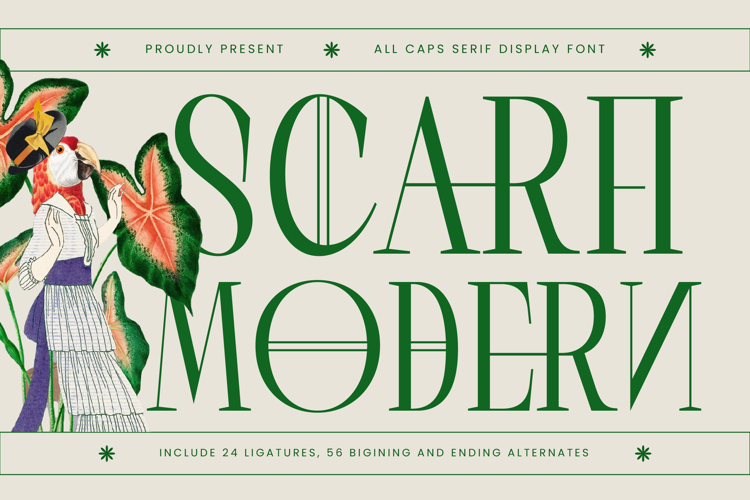
Scarfi Modern - All Caps Serif Display Font
Scarfi Modern is an all caps serif display font that radiates elegance, refinement, and bold sophistication. Its tall, narrow proportions, sharp serifs, and clean geometric cuts create a striking balance between modern minimalism and timeless classic style. Designed with 24 ligatures and 56 beginning and ending alternates, Scarfi Modern allows designers to craft dynamic and unique layouts that stand out with authority and grace.
This font is built to excel in headline typography, where its sleek forms and tall proportions instantly capture attention across posters, banners, and editorial layouts. In branding and logo design, Scarfi Modern communicates exclusivity and prestige, making it an ideal choice for luxury brands, fashion houses, cultural institutions, and boutique businesses that want to showcase a bold yet refined identity. Its architectural structure also makes it a perfect fit for packaging design, especially for perfumes, wine, artisanal goods, and gourmet products where typography must elevate the sense of premium quality.
Scarfi Modern thrives in advertising campaigns, event promotions, and social media graphics, where its alternates and ligatures bring artistic variety and sophistication. For editorial spreads, book covers, wedding invitations, and certificates, it delivers timeless refinement while ensuring clarity and elegance.
With multilingual support, Scarfi Modern is adaptable for international markets, making it versatile for global design projects.
Ultimately, Scarfi Modern is more than just a typeface—it is a visual symbol of elegance, authority, and modern artistry. Whether used in editorials, branding, packaging, or digital media, it guarantees every project communicates strength, style, and unforgettable presence.